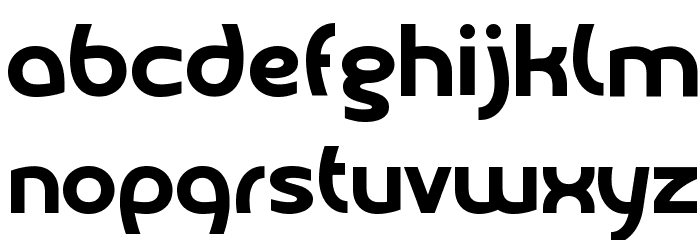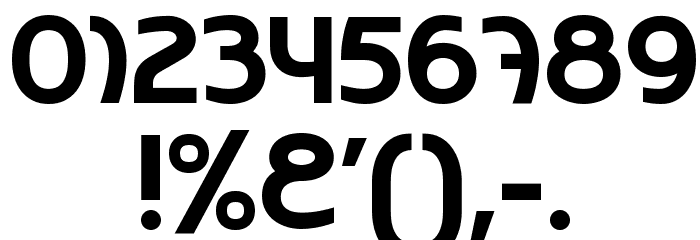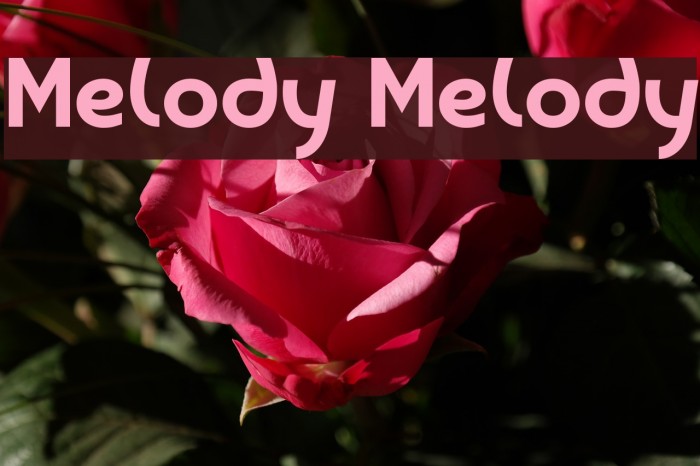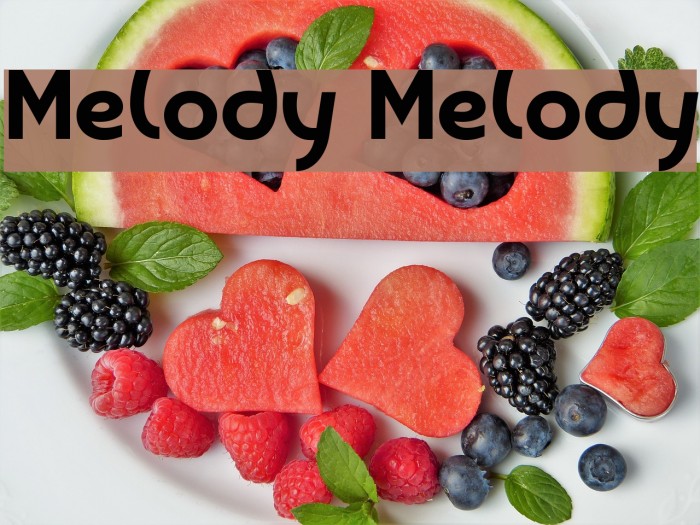
Melody Melody Font
This font features a bold and rounded style with a modern and playful appearance. The characters are wide and have a consistent stroke thickness, giving them a strong presence. The rounded edges and smooth curves contribute to a friendly and approachable look, making it suitable for various creative projects. The numbers and special characters maintain the same rounded and bold characteristics, ensuring uniformity across all glyphs. This font's design is both eye-catching and versatile, ideal for making a statement in any design work.
A bold, rounded, and modern font with a playful and approachable style.
- Proposed Projects: Ideal for branding, advertising, children's books, and playful design projects.